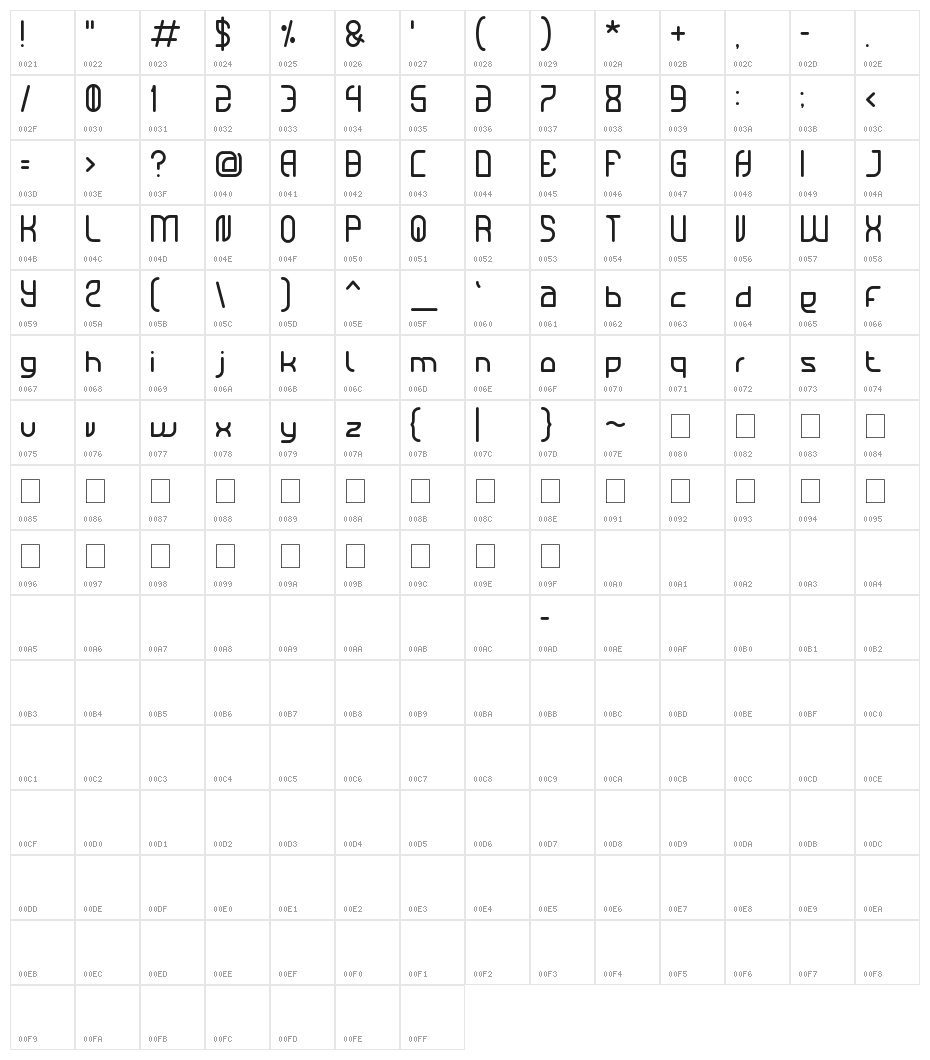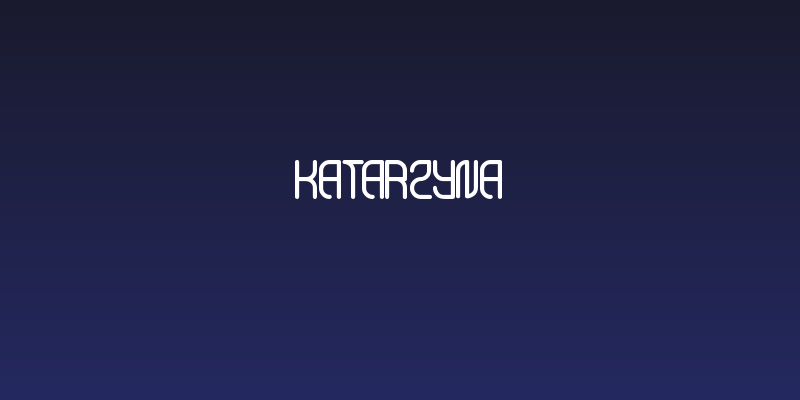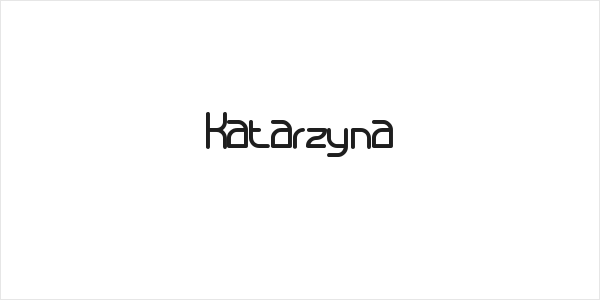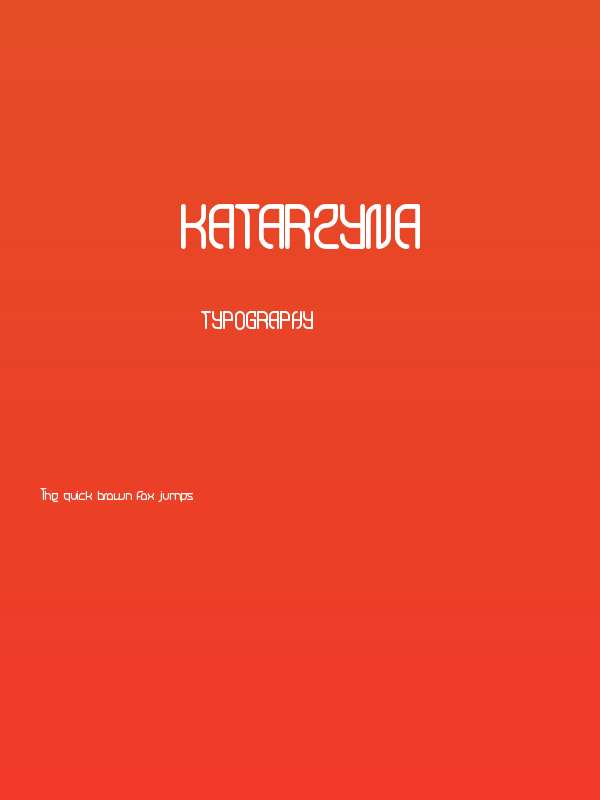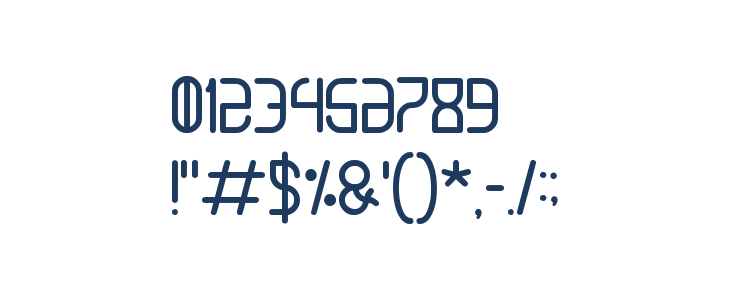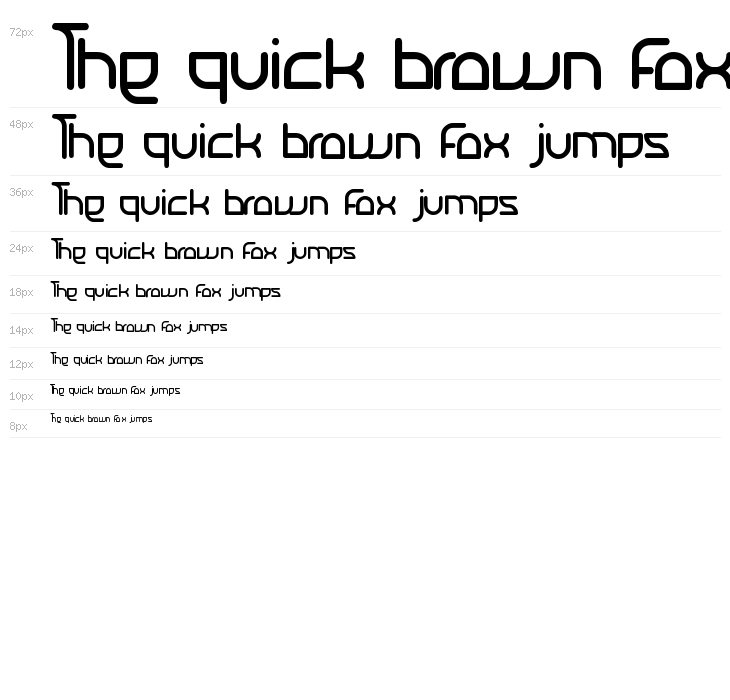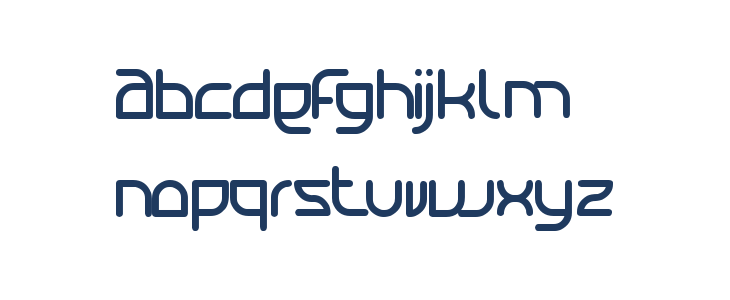
Katarzyna Font
Katarzyna Description
This font features a modern, geometric design with rounded edges and a clean, streamlined appearance. The characters are uniform in height, creating a cohesive and balanced look. The uppercase letters are bold and distinct, while the lowercase letters maintain the same geometric style, offering a harmonious blend. The numerals and special characters follow the same design principles, ensuring consistency across all elements. The overall style is futuristic and minimalistic, making it suitable for contemporary design projects.
| Use Case | Logos, Headlines, Digital Interfaces |
| Proposed Projects | Ideal for tech branding, modern advertising, digital interfaces, and futuristic-themed projects. |